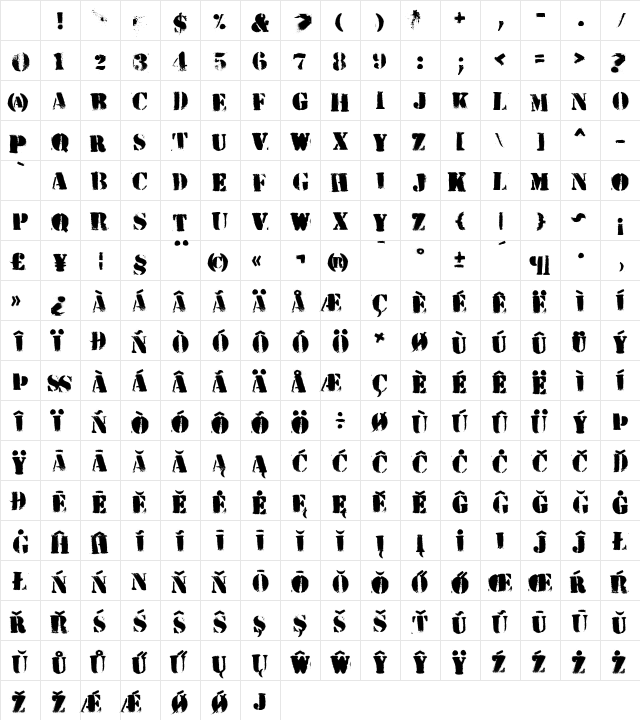
Complete HVD Peace Regular glyph index. Displaying only characters natively supported by HVD Peace Regular font.
HVD Peace is a composed and adaptable typeface that performs quietly and consistently across a wide range of design contexts.
Who designed the HVD Peace Regular font?